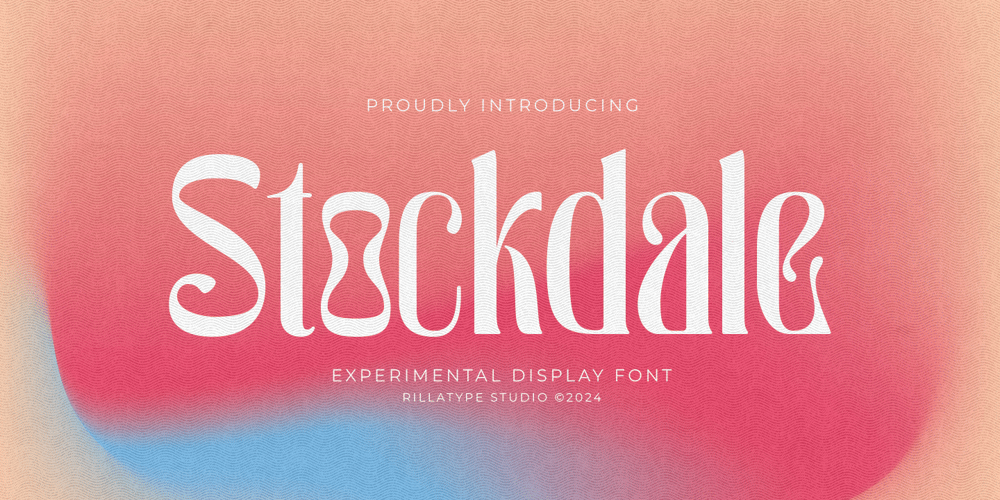
RT Stockdale Font Family was designed by Gustian Agung Asprilla and published by Rillatype. RT Stockdale contains 1 styles and family package options. Stockdale is a sophisticated editorial display font designed to elevate your projects with a touch of elegance and refined style. Its graceful letterforms and balanced structure make it a perfect choice for editorial layouts, magazine headlines, branding, and luxury design. With its timeless appeal, Stockdale effortlessly captures a blend of modern sophistication and classic beauty, ensuring your text stands out with a sense of poise and finesse.